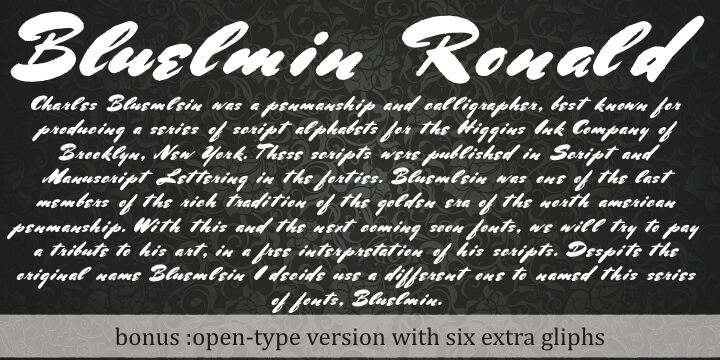
Bluelmin Ronald by Paulo W. is a free brush script with a fast, forceful silhouette. Broad strokes change width abruptly, and their blunt ends, sharp turns, and tightly packed joins make the lettering look vigorously painted rather than carefully penned.
Music, street culture, and action sports match its restless movement, making it well suited to posters and merchandise. It feels immediate and physical. For a record label or clothing brand, the sweeping capitals and compact lowercase forms can turn a name into a rough, recognizable signature.
Bluelmin Ronald is based on the work of Charles Bluemlein, a penman and calligrapher best known for producing a series of script alphabets for the Higgins Ink Company of Brooklyn, New York. These scripts were published in Script and Manuscript Lettering in the 1940s. Charles Bluemlein was among the last members of the North American penmanship tradition of the golden era.
Although the original name was Bluemlein, Bluelmin was chosen for this series of fonts.
The OpenType version includes six extra glyphs accessible through the glyph palette or the contextual alternates OpenType feature, plus a “G” glyph available through the Special Set 01 feature.